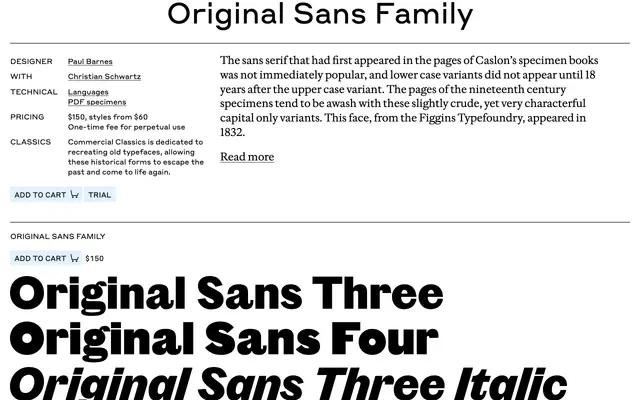
Original Sans
Commercial Type · Paul Barnes with Christian Schwartz
A revival by Paul Barnes and Christian Schwartz of the earliest sans serifs from Caslon and the Figgins Typefoundry, leaning into the crude, characterful quality of nineteenth-century display sans.
A revival sans drawn by Paul Barnes with Christian Schwartz, returning to the earliest specimens of the sans serif in Caslon's books and to a Figgins Typefoundry specimen from 1832. Original Sans is offered in two related cuts, Three and Four, each with italics, capturing the characterful awkwardness of the original capitals-only display sans before lower-case variants were drawn. Best for editorial and identity work that wants a sans with documentary weight and pre-modern texture.
Commercial Type root Original Sans in the earliest sans serif specimens of the Caslon foundry and the Figgins Typefoundry's 1832 capitals, embracing the slightly crude, characterful quality of nineteenth-century display sans serifs.